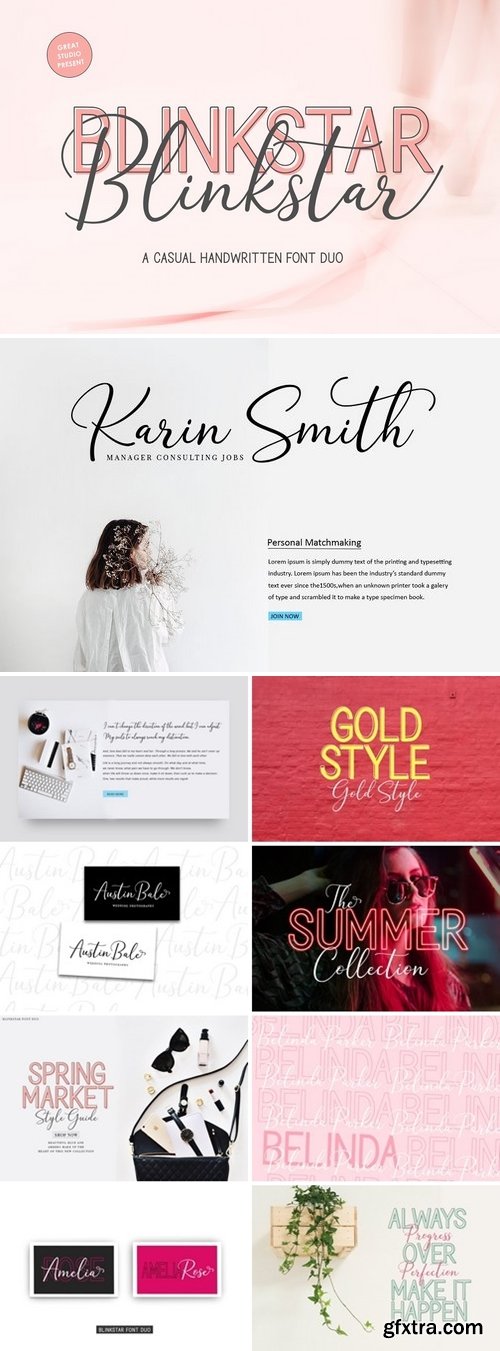
Blinkstar Font Duo is a playful script containing many choices of alternative characters to choose from as well as ligatures that look natural to add to the authenticity of letters. A collection of strange and initial swash tips is also included to add finishing touches or fill the design space in your type design.